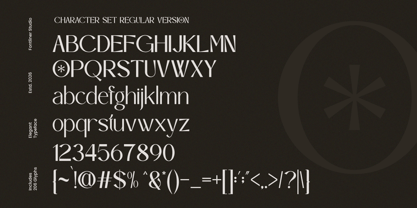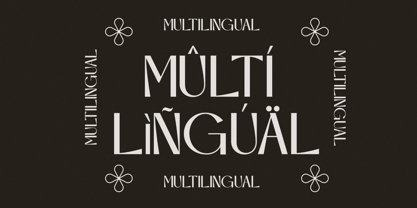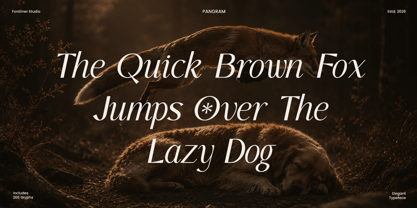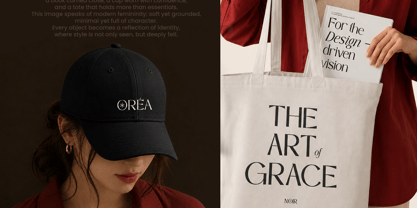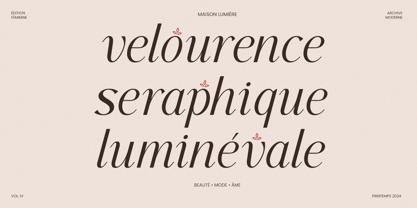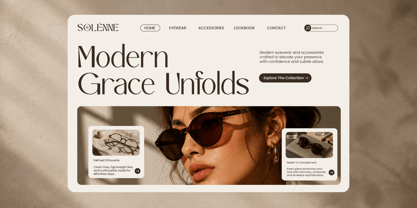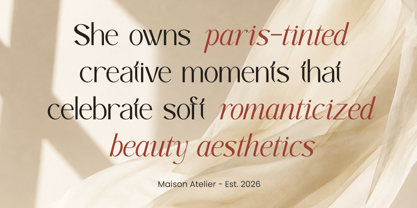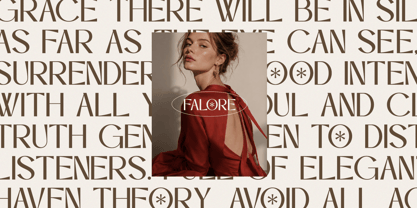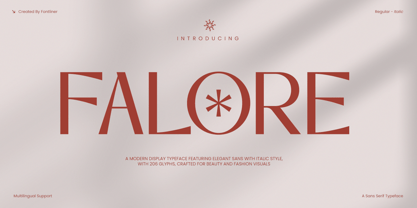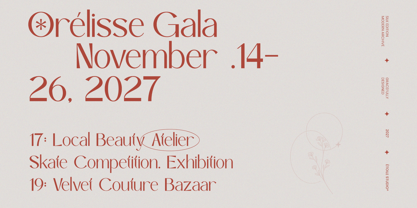
Falore
by Font Liner
The Falore Font Family was designed by Ghina Luthfiarieska and published by Font Liner. Falore contains 2 styles and family package options. More about this family
Falore is a sophisticated modern display typeface that captures the essence of luxury fashion editorials, refined branding, and timeless feminine elegance. Designed with graceful high-contrast letterforms, stylish alternates, and a beautifully balanced italic companion, this typeface delivers a premium visual presence perfect for upscale creative projects. Inspired by Parisian fashion houses, boutique branding, and contemporary beauty campaigns, Falore blends classic sophistication with modern minimalism.
Crafted for designers who seek editorial elegance and premium aesthetics, Falore performs beautifully across luxury logos, fashion magazines, cosmetic packaging, wedding branding, perfume labels, social media campaigns, product photography overlays, boutique websites, and premium typography presentations. Its multilingual support, uppercase and lowercase characters, punctuation, numerals, and polished stylistic consistency make it a versatile creative asset for high-end design work.
Whether you're building a couture-inspired identity, creating elegant feminine branding, or designing editorial visuals with premium sophistication, Falore brings charm, confidence, and visual prestige into every composition.
Designers: Ghina Luthfiarieska
Foundry: Font Liner